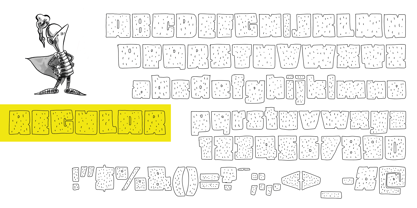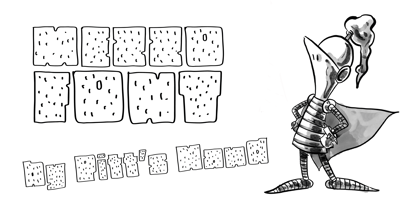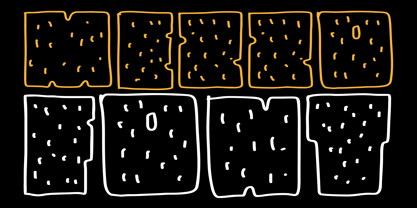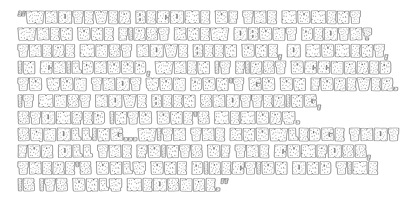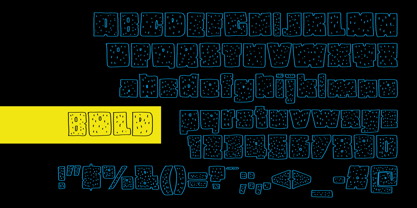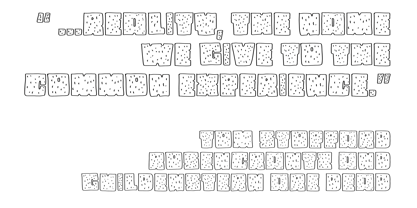
Mezzo Font
por Pitt's Hand
La familia tipográfica Mezzo Font fue diseñada por Pietro Rotelli y publicada por Pitt's Hand. Mezzo Font contiene 2 estilos y opciones de paquete familiar. Más información sobre esta familia
Mezzo Font is a hand-drawn display typeface built from simple geometric blocks and playful medieval-inspired shapes. Created with an intentionally imperfect and handcrafted approach, it captures the spirit of doodled signs, fantasy maps, children's storybooks, comic lettering, and humorous role-playing games.
Every character has been carefully drawn to maintain a strong visual personality while remaining clear and readable. The block-based construction gives the font a sturdy, almost carved appearance, as if the letters had been assembled from wooden pieces, stone blocks, or the signs hanging outside a bustling fantasy tavern.
Designed to balance charm and usability, Mezzo Font works particularly well for titles, logos, packaging, game manuals, comics, board games, children's books, fantasy projects, and playful branding. Its organic irregularities bring warmth and character that digital-perfect typefaces often lack.
Available in Regular and Bold, Mezzo Font allows designers to create clear typographic hierarchies while preserving its distinctive handcrafted style.
Features
• Hand-drawn block-style design
• Two styles: Regular & Bold
• Strong readability with a playful personality
• Ideal for fantasy, comics, games, children's publishing, and creative branding
• Supports both decorative titles and short text applications
Recommended Uses
Fantasy books • Comic titles • Board games • RPGs • Children's books • Packaging • Posters • Logos • Indie games • Medieval-inspired projects